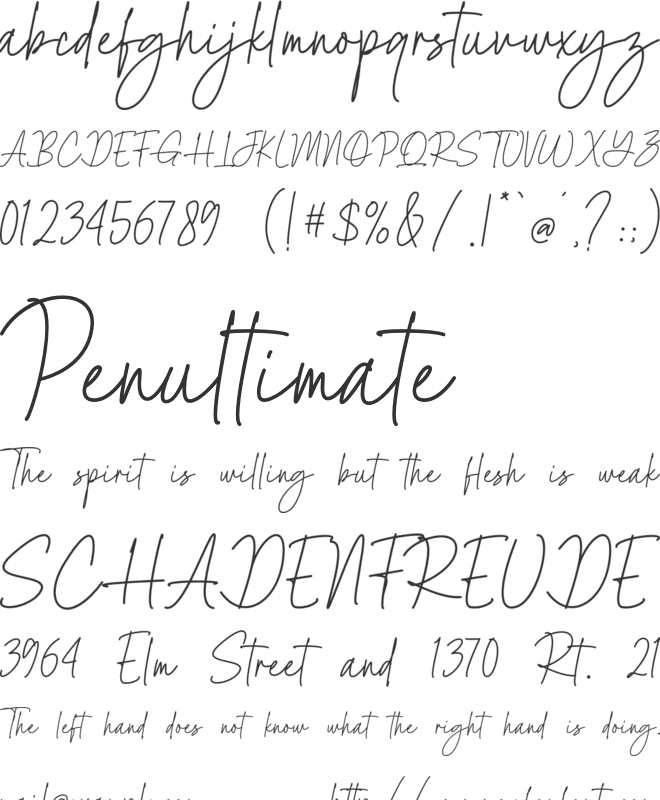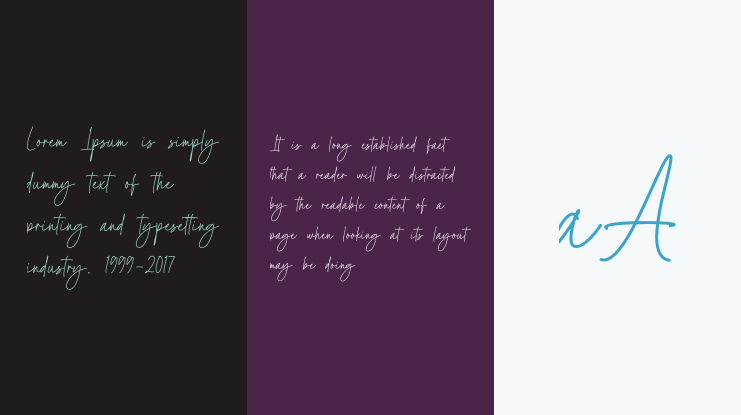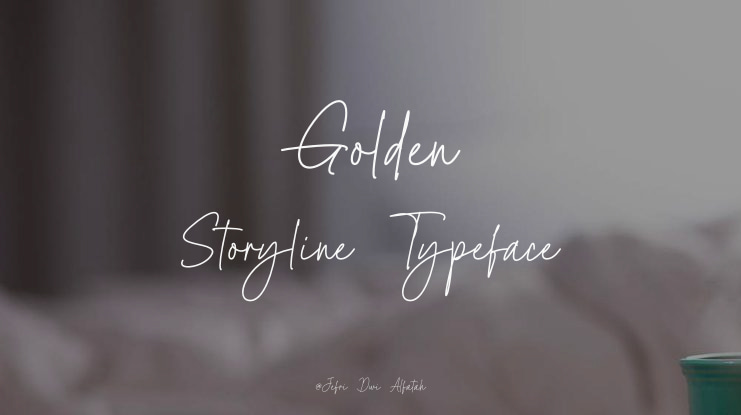
Golden Storyline Font
Golden Storyline is an elegant and luxurious handwritten font with a signature feel. This font is made with detailed hand strokes with special line curves, it captures the essence of modern handwriting while exuding a refined, high-end aesthetic.